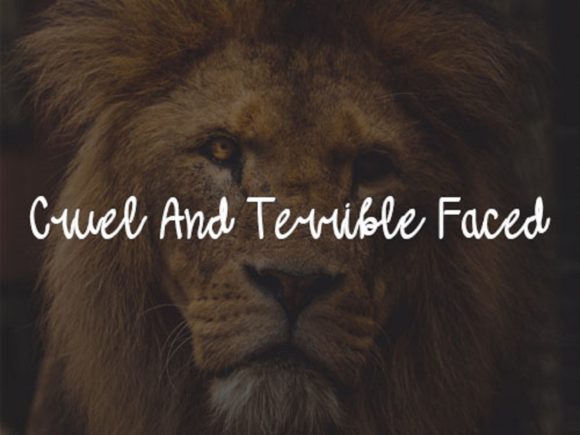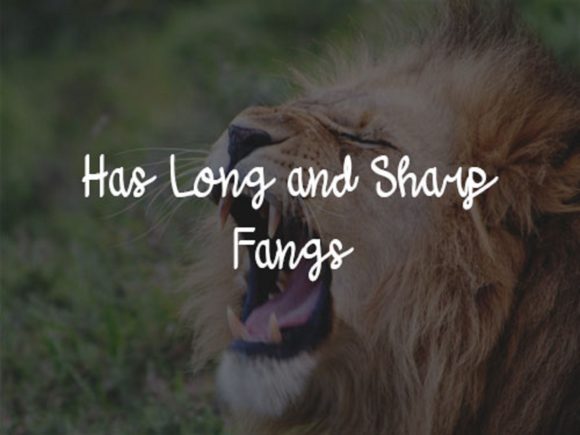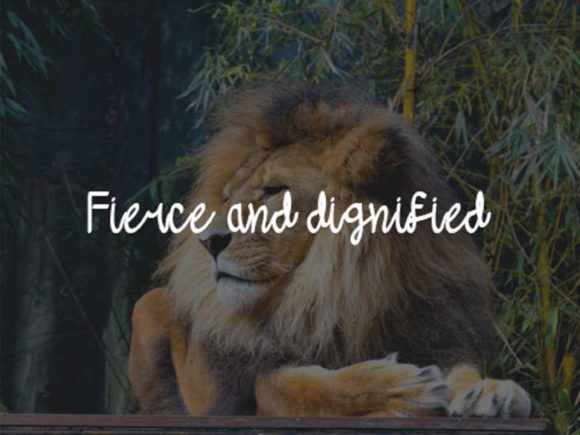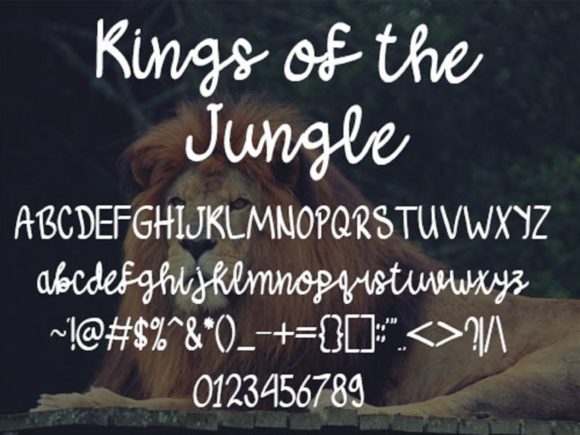
Introduction to Kings of the Jungle Font
Have you ever been stuck on a creative project, desperately searching for the perfect design element to bring your vision to life? It’s a feeling we’ve all been there, and it’s frustrating. But what if I told you that the solution lies in a beautiful, handwritten font that’s as versatile as it is charming?
Meet the Kings of the Jungle Font, a delightful and free design resource that’s sure to elevate your creative project. With its natural and unique style, this font is the perfect addition to any design, whether you’re working on a high-quality brochure or a fun social media campaign.
What sets the Kings of the Jungle Font apart is its transparent background, allowing you to easily incorporate it into any design without worrying about distracting from your message. And the best part? It’s completely free to download, making it a valuable resource for designers of all levels.
Key Features of Kings of the Jungle Font
- Unique, exotic design inspired by the majesty of jungle animals, perfect for creative projects and design resources.
- Transparent background option allows for seamless integration into various design elements.
- High-resolution font with scalable sizes, ideal for use in logos, typography, and other design elements.
- Designed with a bold and adventurous spirit, the Kings of the Jungle Font is perfect for making a statement in any creative project.
- Perfect for designers, artists, and writers seeking a unique design resource for their next project.
Honest Review: Kings of the Jungle Font
I recently stumbled upon the Kings of the Jungle Font while searching for design resources for a creative project. As a designer, I was excited to try out this free download and see if it would meet my expectations.
- High-quality typography: The Kings of the Jungle Font boasts beautiful, intricate details that make it perfect for titles and headings.
- Unique design: This font’s exotic and playful vibe is ideal for projects that require a touch of the jungle.
- Transparent background: I appreciate that the font comes with a transparent background, making it easy to combine with other design elements.
- Not suitable for body text: While the Kings of the Jungle Font is perfect for titles, it may not be the best choice for body text due to its ornate design.
- May require adjustments: Depending on the project, you may need to adjust the font size and spacing to get the desired look.
Overall, I’m impressed with the Kings of the Jungle Font. It’s a great design resource for creative projects that require a unique and high-quality font. With some adjustments, it can be a fantastic addition to any design.